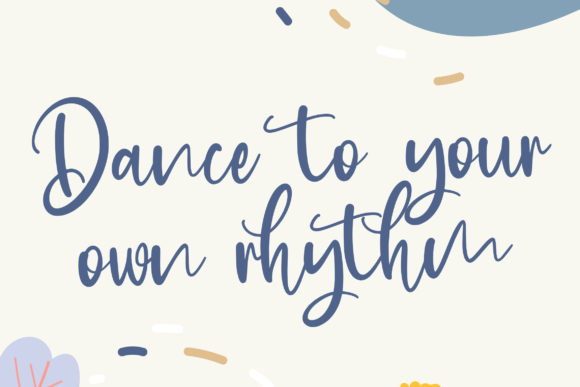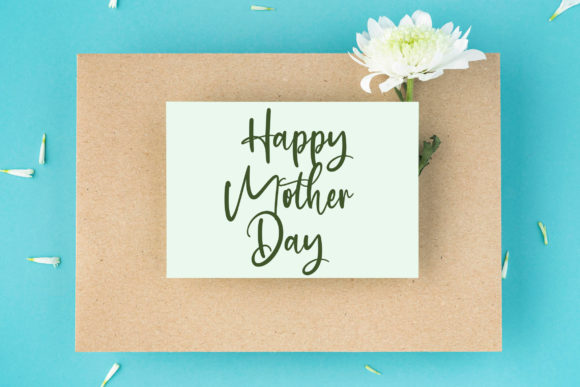
Jitterbug Font
db-ku.com - Script & Handwritten -- Jitterbug is an adorable quirky handwritten font. It will add an incredibly joyful touch to your designs.